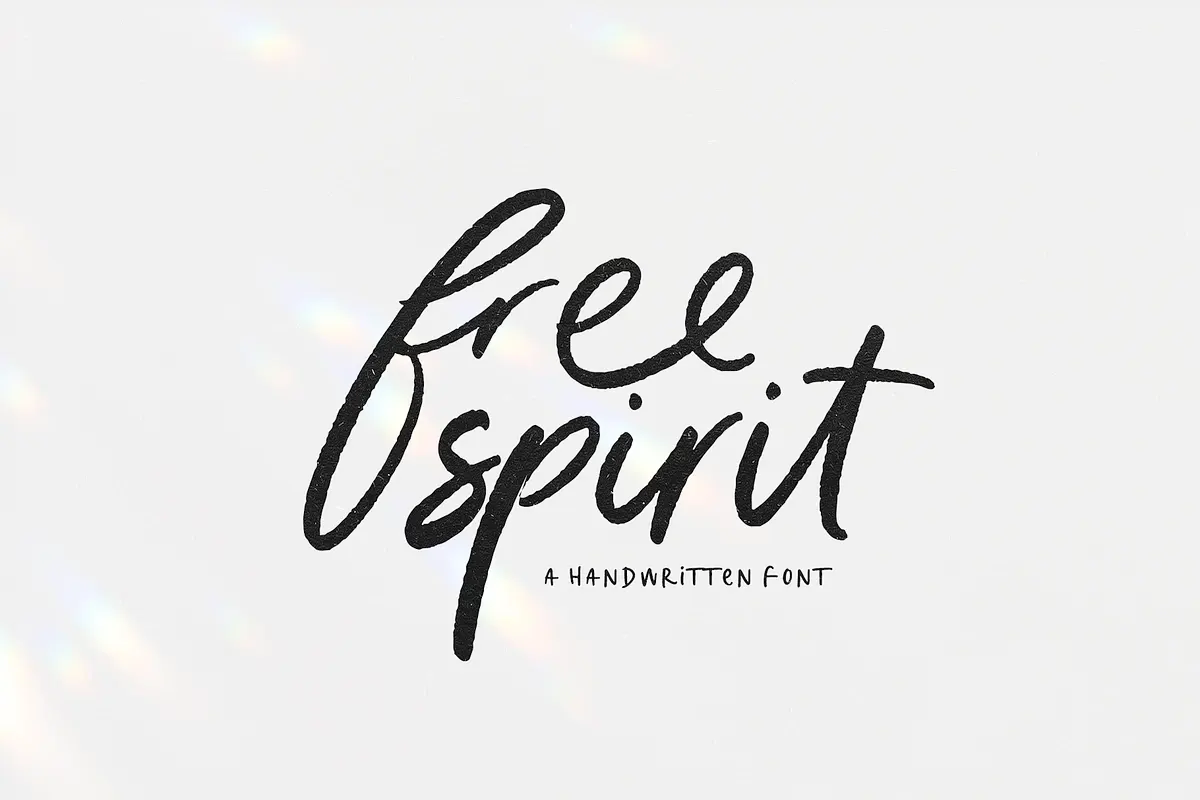
Free Spirit | Casual Brush Font Free Download
Free Spirit | Casual Brush Font Free Download is a lively and expressive typeface that captures the carefree vibe of hand-painted brush lettering. With its bold strokes, natural texture, and laid-back style, this font is perfect for posters, social media graphics, T-shirt designs, product packaging, and anything that needs a touch of creative freedom and artistic flair.
Whether you're designing for a boho brand, a summer event, or a personal passion project, Free Spirit | Casual Brush Font Free Download brings energy and authenticity to your work. Its imperfect charm and spontaneous feel make every word stand out with personality.